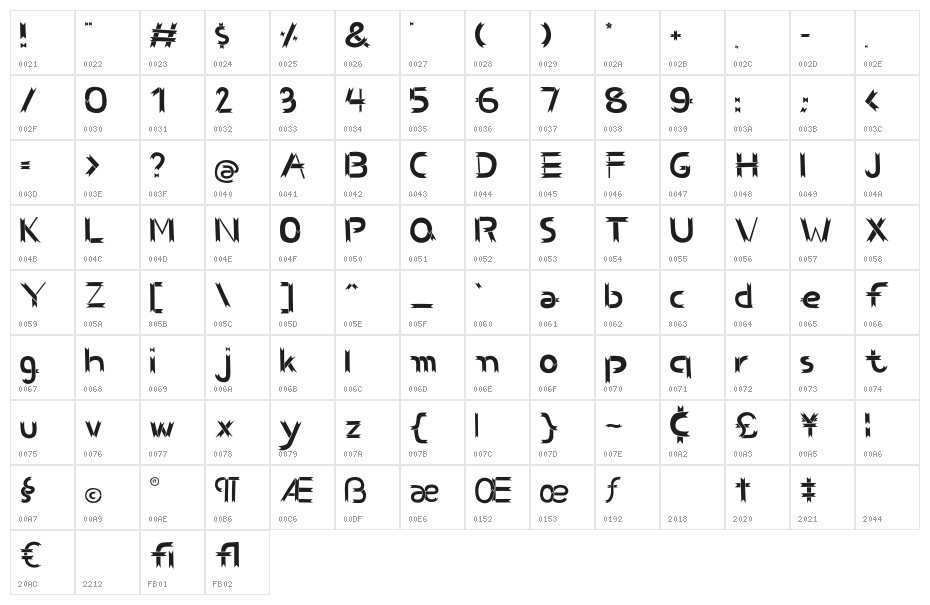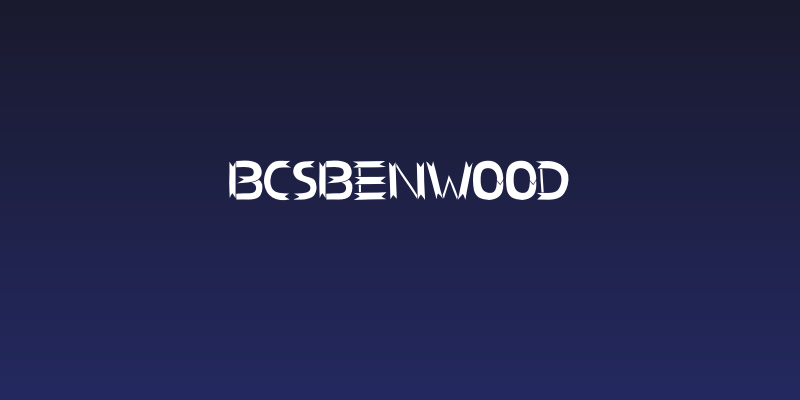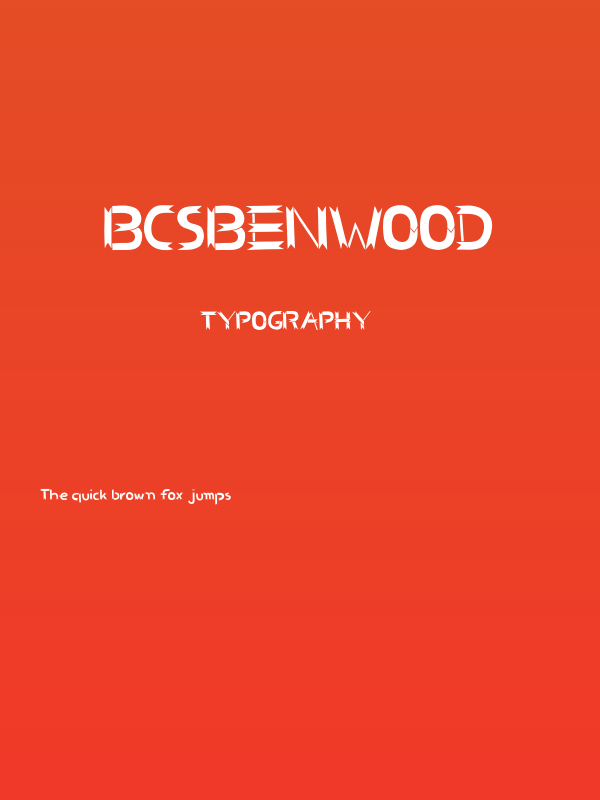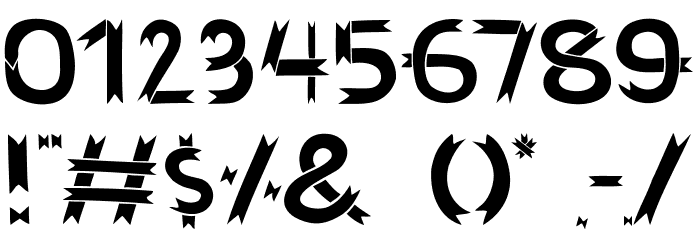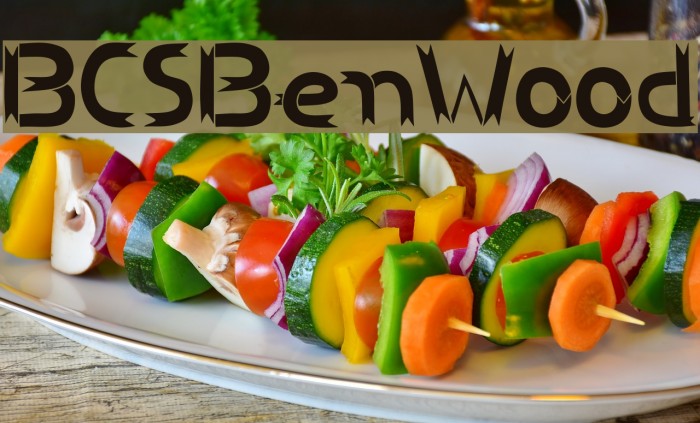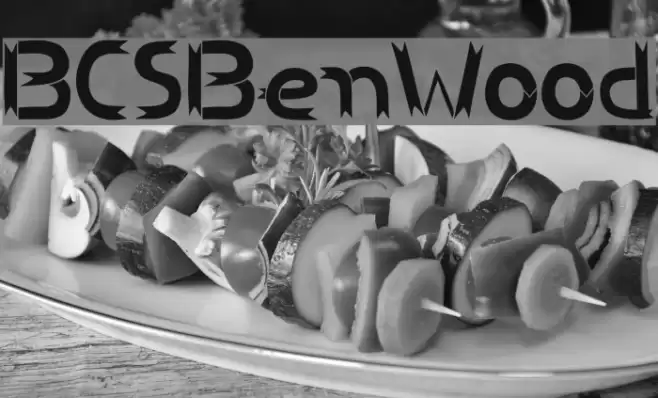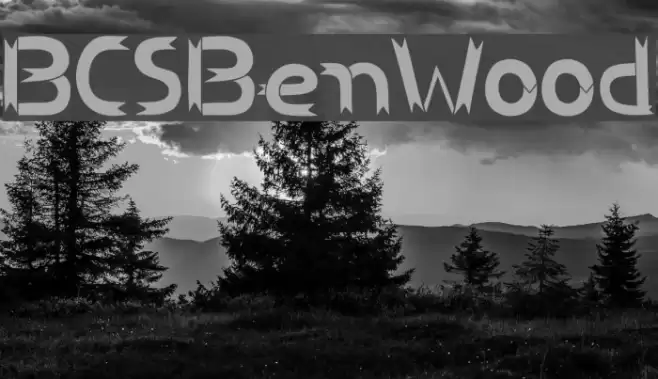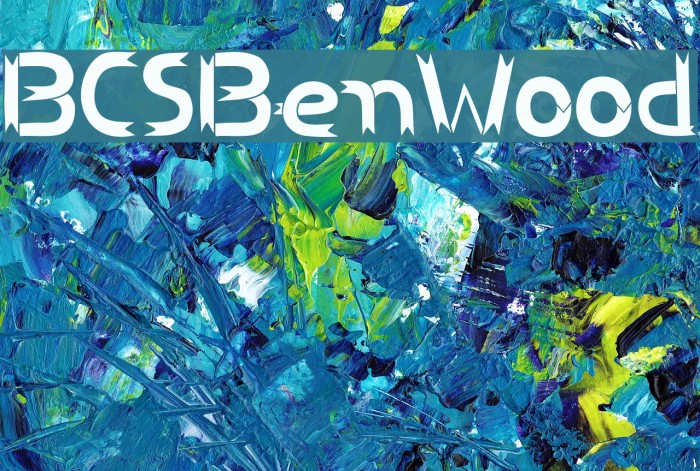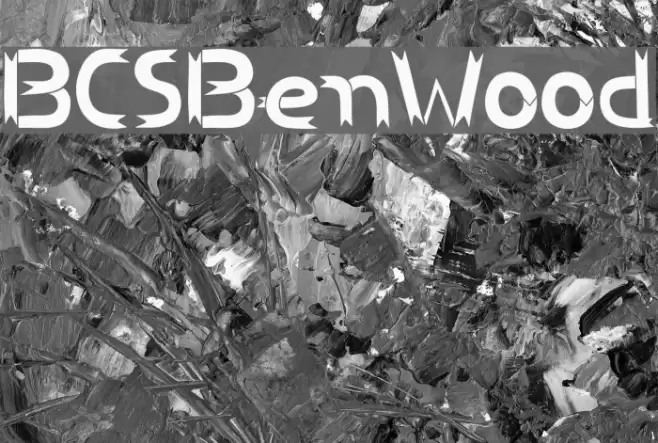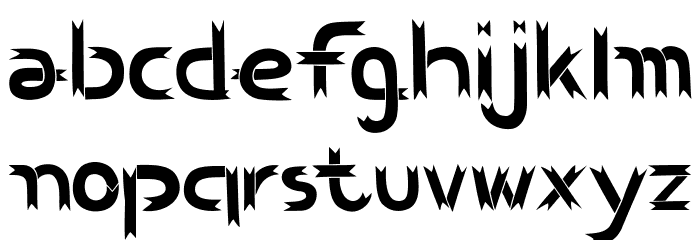
BCSBenWood Font
BCSBenWood Description
This font features a bold and edgy design with sharp, angular cuts and a dynamic, aggressive style. The characters have a unique, jagged appearance that creates a sense of movement and energy. The uppercase and lowercase letters maintain a consistent style, with each character exhibiting distinct, pointed edges. Numbers and special characters follow the same design principles, ensuring a cohesive look across all elements. This font's striking appearance makes it ideal for projects that require a bold statement or a modern, unconventional aesthetic.
| Proposed Projects | Ideal for music album covers, sports team logos, edgy branding, and modern posters. |